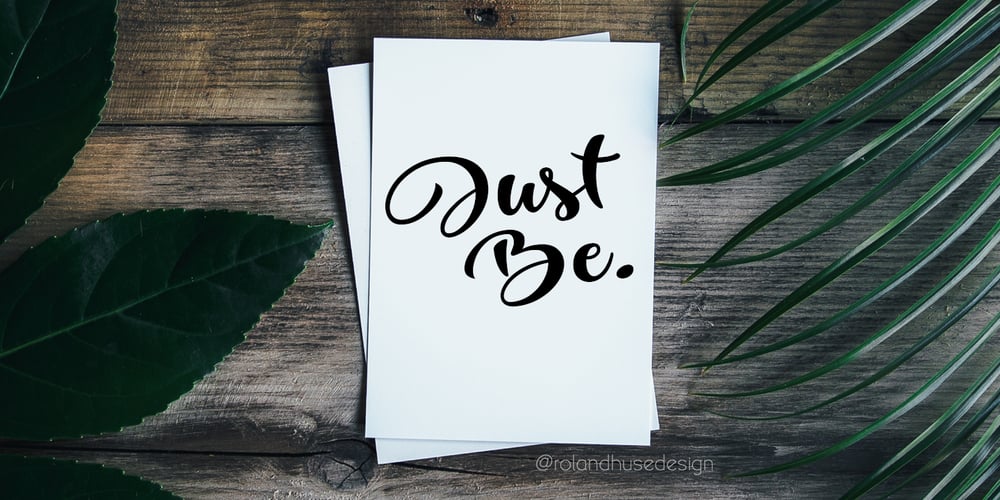
Just Be Font Family was designed by Roland Hüse and published by Roland Hüse Design. Just Be contains 1 styles and family package options. JUST BE is a playful brush script. Perfect for titles, headings and logotypes for blogs, ads, quote prints, home decor, book title, invitation, birthday, custom product, lifestyle imagery (like quotes and stuff). Character set contains Eastern and Western European Latin accented letters. For additional customisations (for logotypes for example) please email me at contact@rolandhuse.com You MAY NOT sell this font or claim them as your own. You MAY NOT edit or rename this font. You MAY NOT redistribute this font. Thank you I hope you like this font & good luck with your project! Roland Instagram: @rolandhusedesign Background images of “Just Be” main poster by Annie Spratt from unsplash https://unsplash.com/@anniespratt “Your best moments in life are ahead” by Helena Hertz https://unsplash.com/@imperiumnordique paper bag mock up by Graphic Burger https://graphicburger.com”